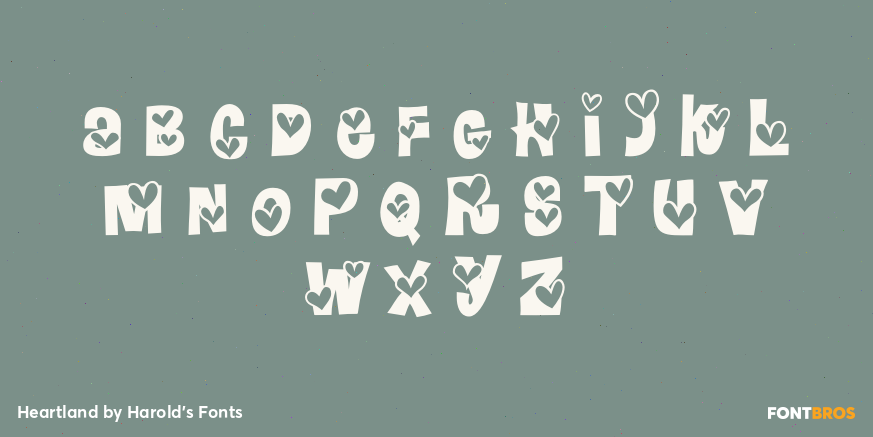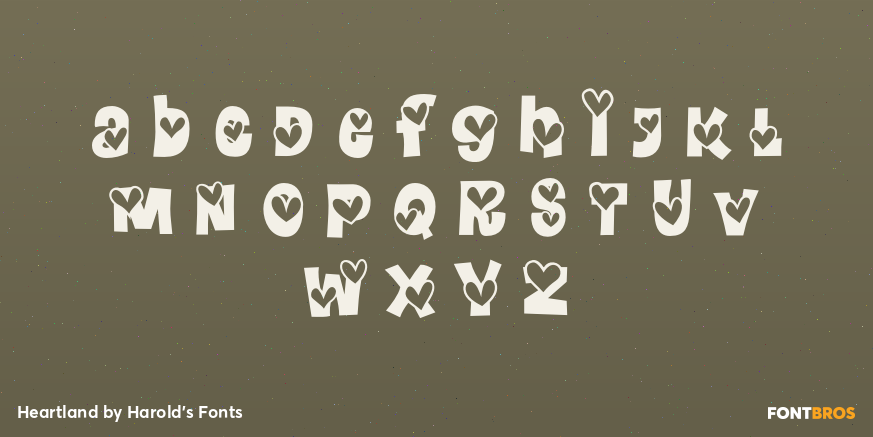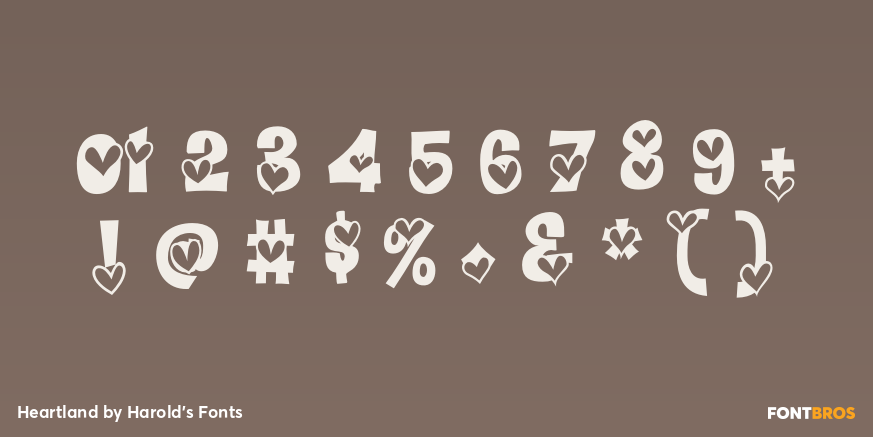
Heartland
Font Family by Harold's Fonts
HEARTLAND is a fun and playful font full of heart. The Regular font has outlined hearts on each character, the Extra font adds even more hearts and can be layered together. These mixed-case fonts have 2 versions of each letter for even more bounce. Inspired by the letterforms of the classic font Daisyland.